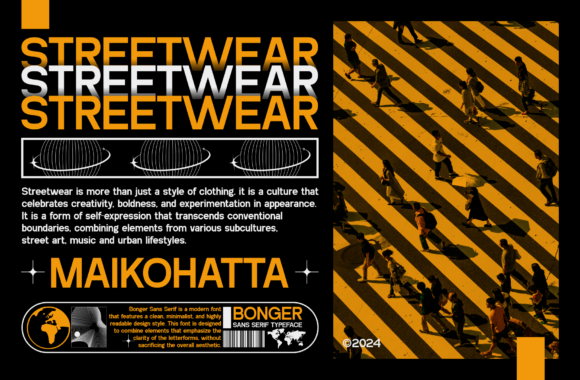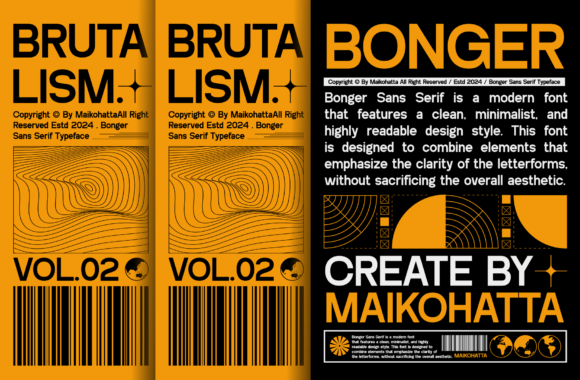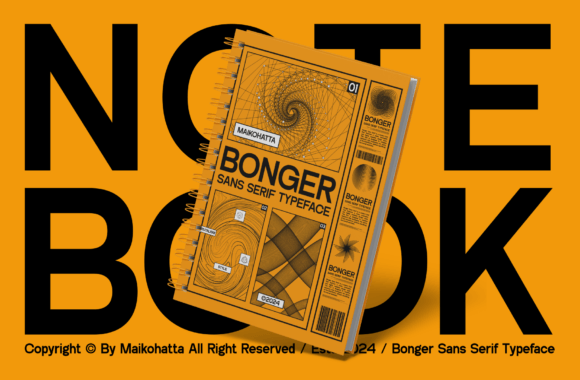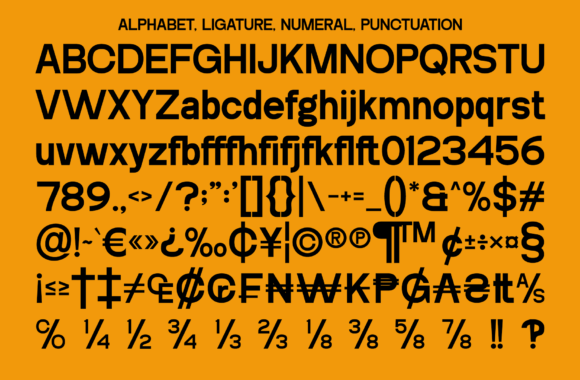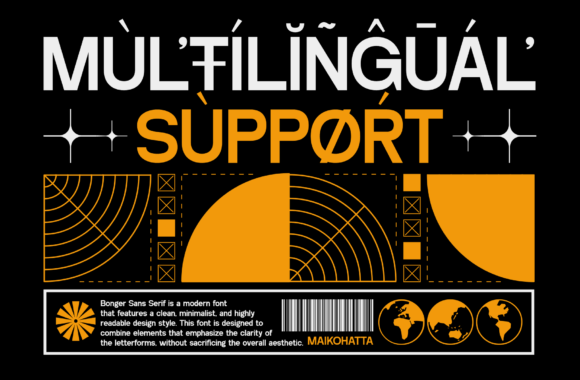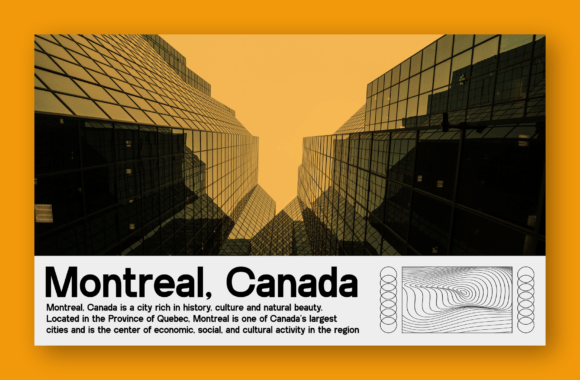
Bonger Font: The Ultimate Sans Serif Typeface for Bold Designs
In the world of typography, a good font can make all the difference in creating a lasting impression. For designers and crafters looking for a bold and authentic display font, Bonger – Sans Serif Typeface is an excellent choice. This versatile font is suitable for a wide range of branding projects, including logos, template designs, esports, and more.
What is Bonger Font?
Bonger Font is a sans-serif typeface designed to make a statement. Its bold and authentic style makes it perfect for creating eye-catching designs that demand attention. The font’s clean and modern lines ensure that it remains legible even at larger font sizes, making it ideal for display purposes.
Key Features of Bonger Font
- Bold and Authentic Style: Bonger Font’s bold style ensures that your designs stand out from the crowd, while its authentic feel adds a touch of sophistication.
- Sans-Serif Design: The font’s sans-serif design makes it perfect for modern and minimalist designs.
- Highly Legible: Bonger Font remains clear and legible even at larger font sizes, making it perfect for display purposes.
- Versatile: The font is suitable for a wide range of branding projects, including logos, template designs, esports, and more.
Use Cases for Bonger Font
Bonger Font’s versatility makes it suitable for various design projects. Here are some use cases:
- Logo Design: Create a bold and memorable logo with Bonger Font that makes a lasting impression.
- Template Design: Use Bonger Font to create stunning template designs for presentations, reports, and more.
- Esports: The font’s bold and modern style makes it perfect for esports branding, including team logos, jerseys, and marketing materials.
- Advertising: Bonger Font’s eye-catching style makes it ideal for advertising campaigns, including billboards, posters, and digital ads.
Benefits of Using Bonger Font
Using Bonger Font in your design projects offers several benefits:
- Unique and Memorable: Bonger Font’s bold style ensures that your designs stand out and remain memorable.
- Time-Saving: The font’s versatility saves you time and effort in finding the perfect font for your project.
- Professional Look: Bonger Font’s modern and clean design gives your projects a professional look and feel.
Tips for Using Bonger Font
To get the most out of Bonger Font, follow these tips:
- Use it Boldly: Bonger Font’s bold style is its strength, so use it boldly to make a statement.
- Experiment with Colors: Try out different colors to find the perfect combination that complements your design.
- Pair it with Other Fonts: Experiment with pairing Bonger Font with other fonts to create a unique and visually appealing design.
Bonger Font is a versatile and bold sans-serif typeface perfect for designers and crafters looking to create stunning designs. Its authentic style, high legibility, and versatility make it suitable for a wide range of branding projects. With its unique and memorable style, Bonger Font is sure to make a lasting impression.